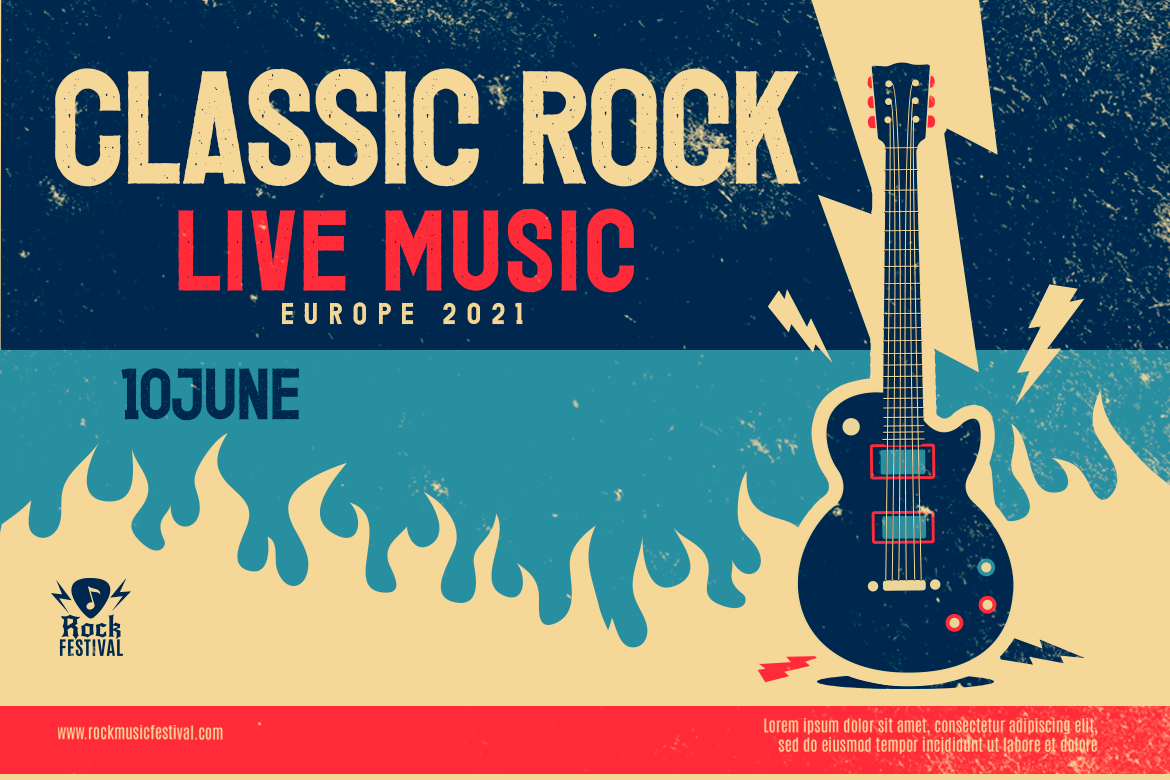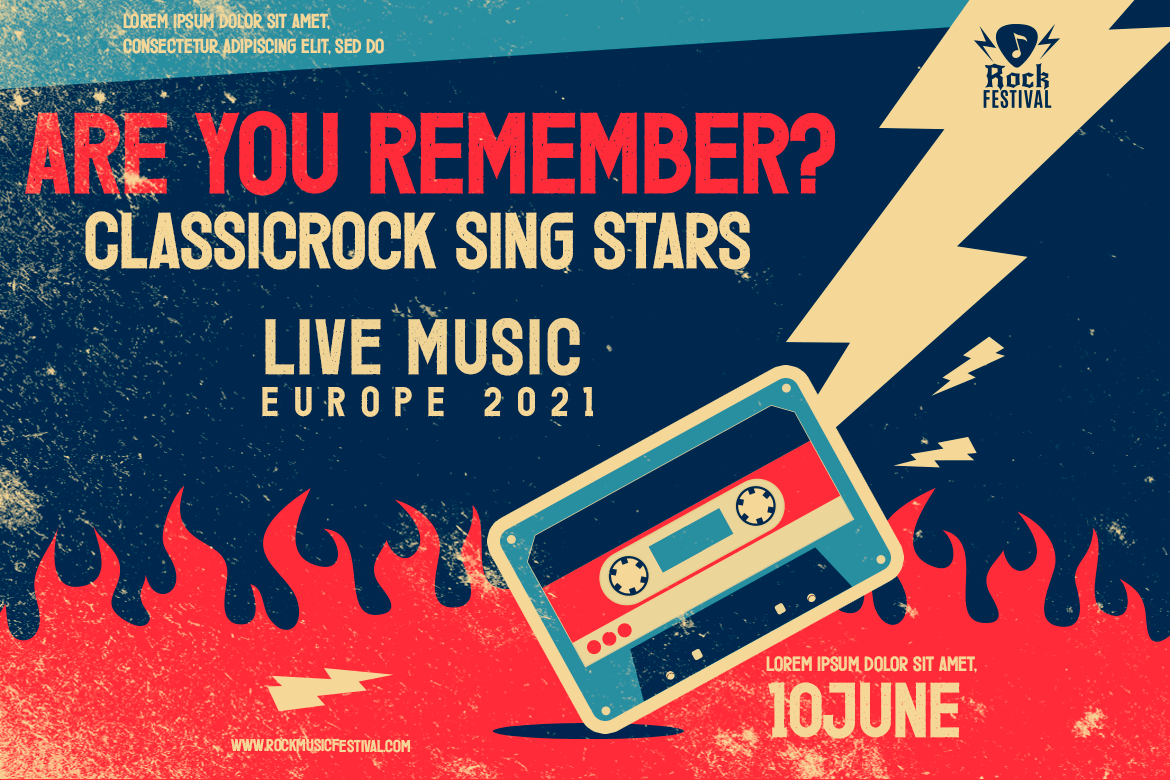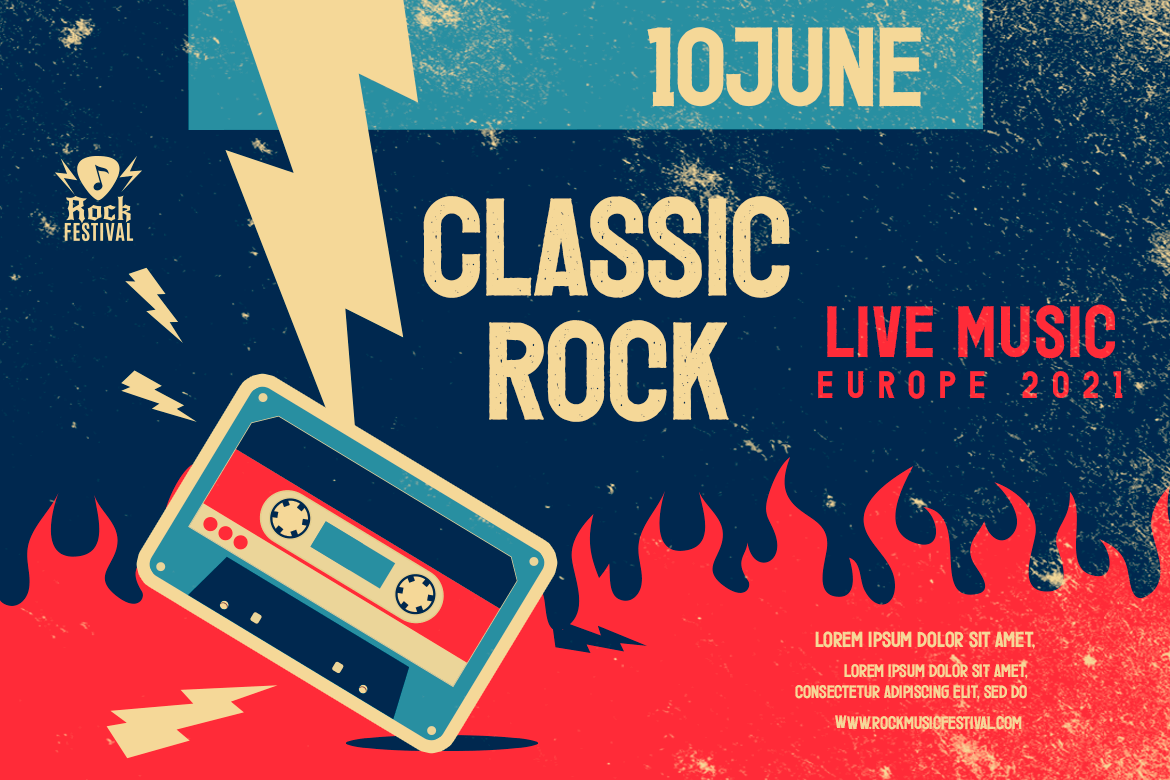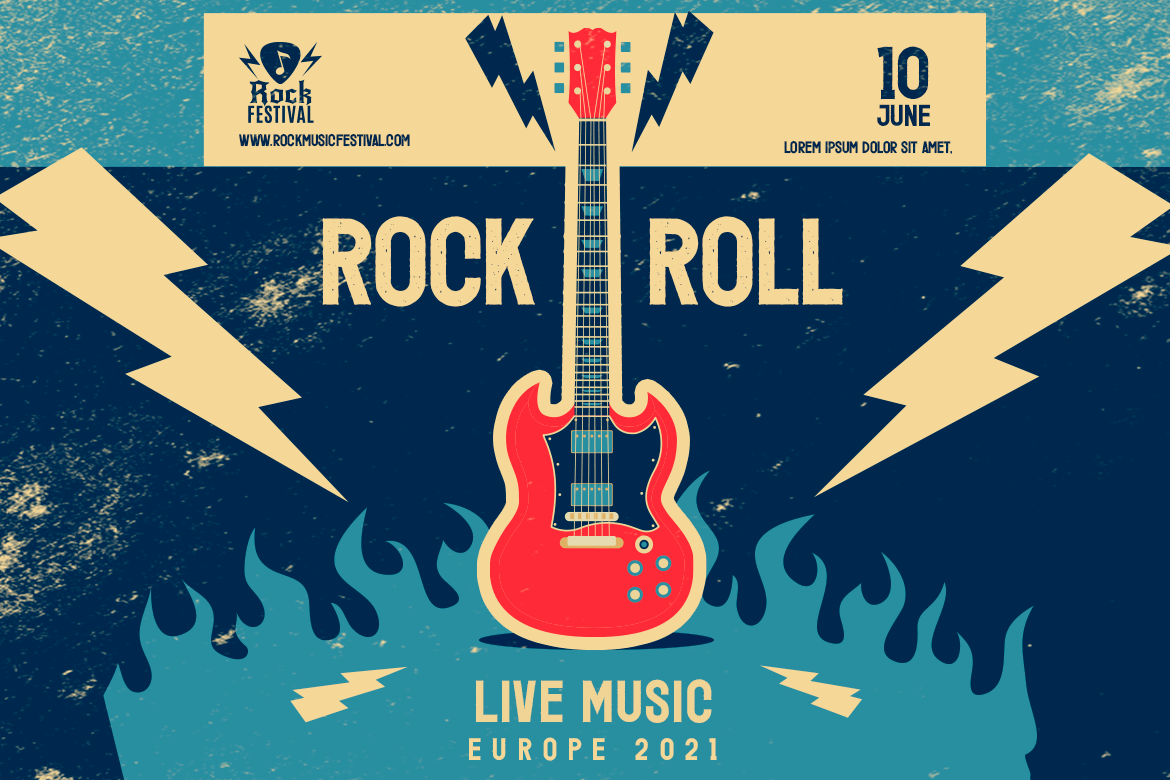
Jefith
Jefith is a family of san serif fonts that are designed with great care by paying attention to the combination of each letter to create a beautiful impression and appearance, making it easier to answer your needs, both formal and non-formal needs.
All Capital Sans is charming and brave in its application, a font with a bold style and strong character makes your design look bold and bold to convey a message to consumers in every design, this font is equipped with rough and stamp variations
This font is perfect for a wide variety of vintage, retro, and various outdoor events, sporting events, branding, banners, posters, movie titles, food and drink, technology, quotes, clothing, and more.